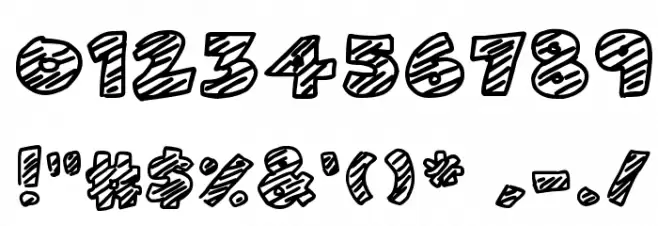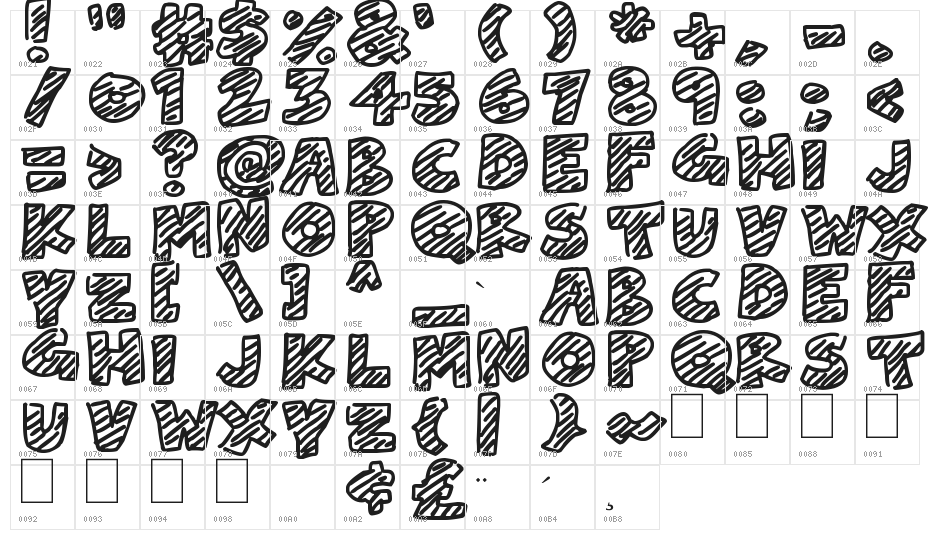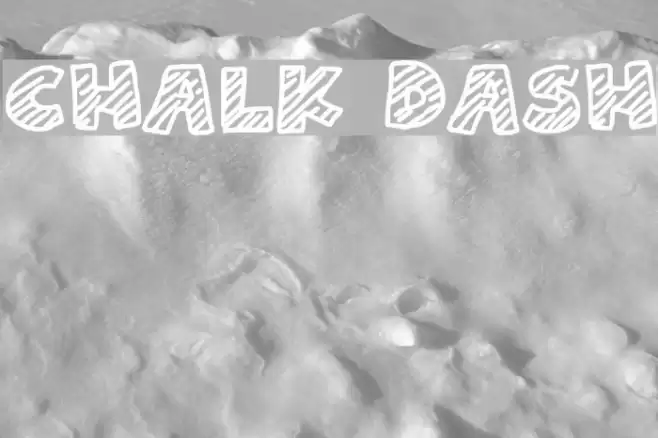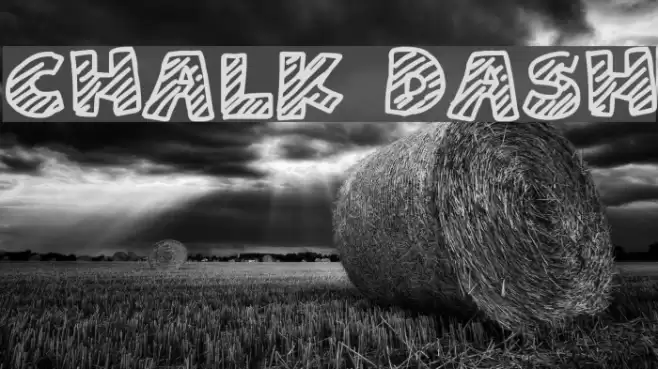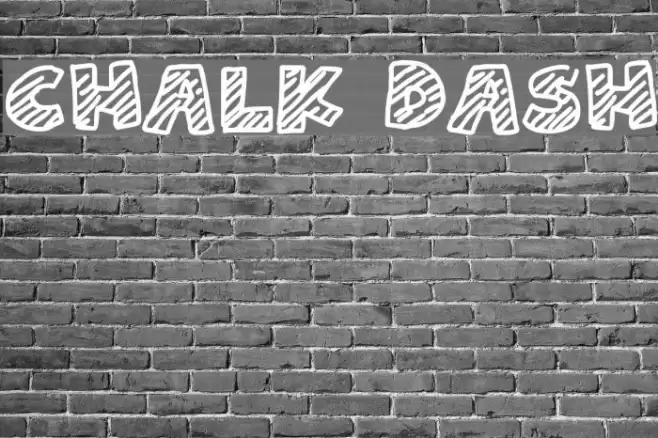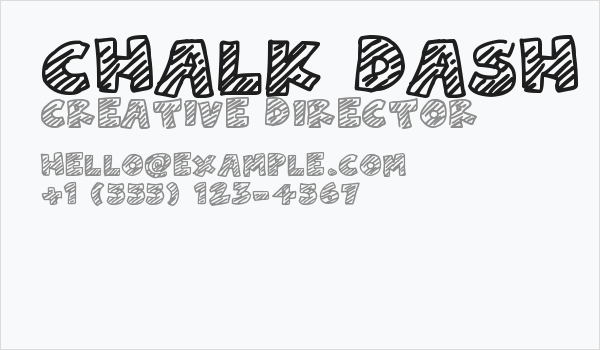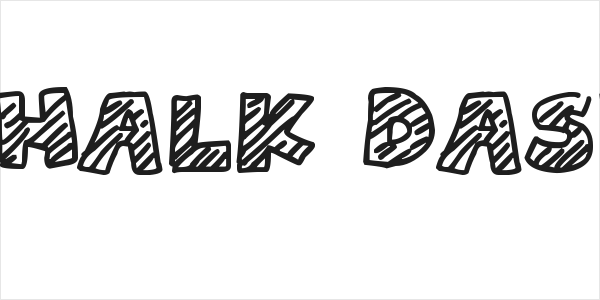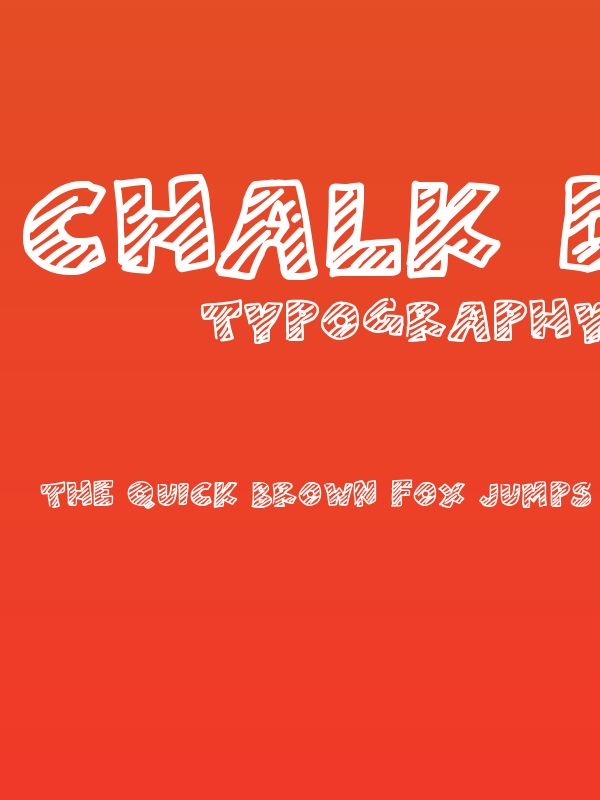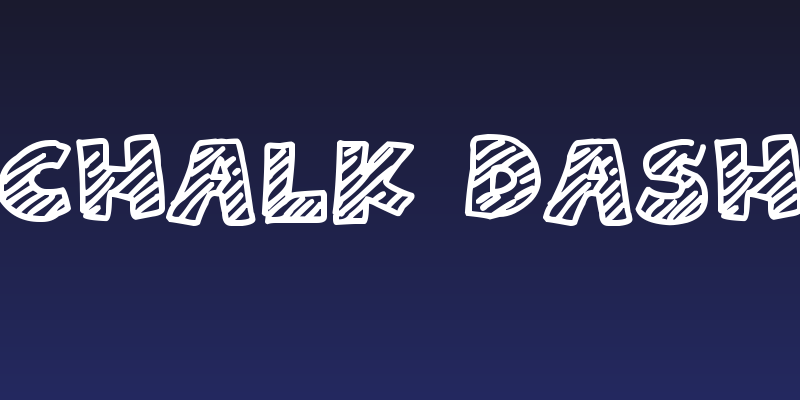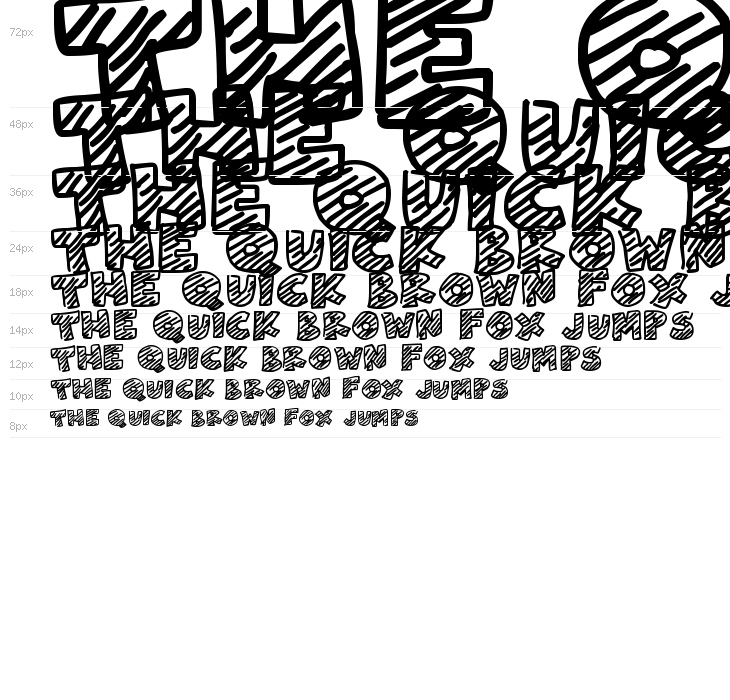
Chalk Dash Font
Chalk Dash Description
This playful and bold font features a unique chalkboard style with a dashed pattern running through each character. The letters are thick and rounded, giving them a friendly and approachable appearance. The uppercase and lowercase letters maintain a consistent style, with a slightly whimsical touch that adds character. The numbers and special characters are equally bold and maintain the same dashed pattern, ensuring a cohesive look across all elements. This font is perfect for projects that require a fun and informal vibe, such as children's books, educational materials, or playful branding.
| Overall Style | Playful, Informal |
| Proposed Projects | Ideal for children's books, educational materials, playful branding, and creative posters. |